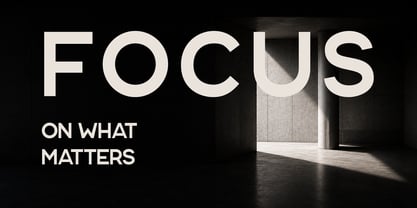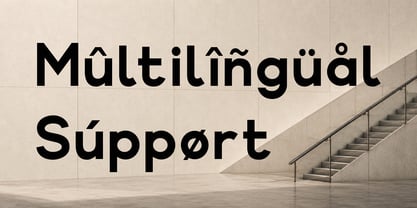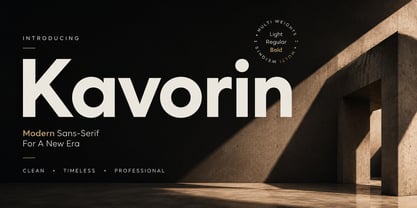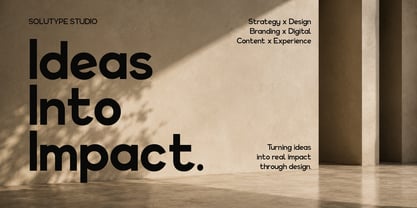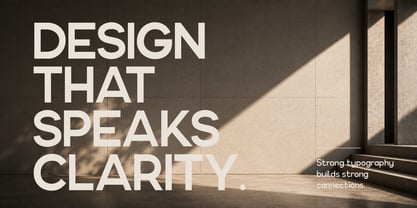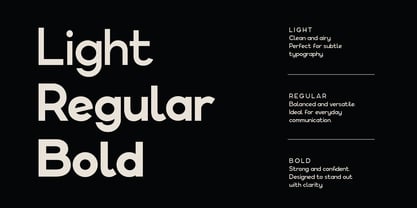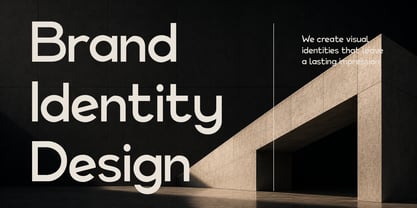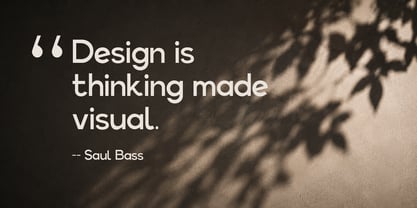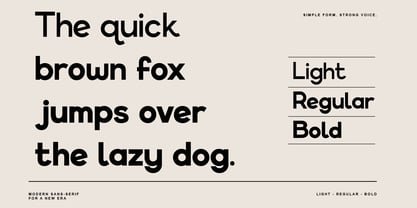
Kavorin
von Solutype
Die Schriftfamilie Kavorin wurde von Jony Suharsono entworfen und von Solutype veröffentlicht. Kavorin enthält 3 Stile und Familienpaketoptionen. Mehr über diese Familie
Introducing Kavorin, a contemporary geometric sans-serif font family created for designers who appreciate clean structure, refined proportions, and timeless simplicity.
Inspired by modern editorial typography and Swiss-inspired design principles, Kavorin balances geometric precision with natural readability, making it suitable for both expressive display settings and functional body text.
Its carefully engineered letterforms maintain consistency across every weight while preserving a warm, approachable character. From bold headlines to subtle interface text, Kavorin adapts effortlessly across a wide range of creative disciplines.
The family includes three thoughtfully crafted weights—Light, Regular, and Bold—providing a complete typographic foundation for modern design systems.
Kavorin is designed to remain relevant across changing trends—offering a clean, professional voice that feels contemporary today and timeless tomorrow.
Designer: Jony Suharsono
Foundry: Solutype